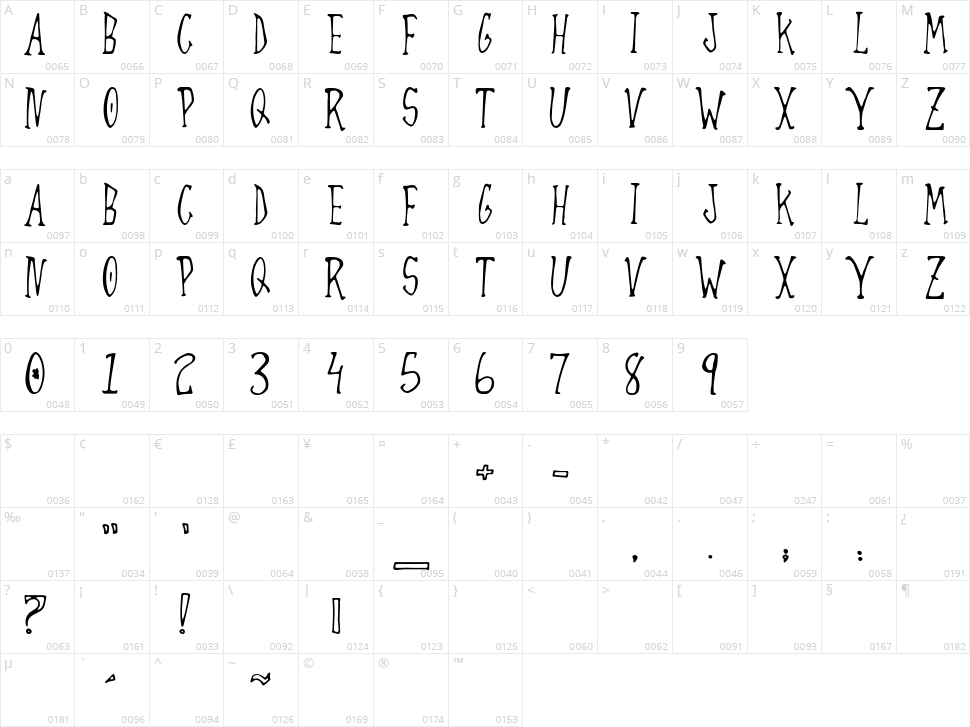
Always Joking
ALWAYS JOKING
A TrueType Font by S. John Ross
Heres a return to some of my older font-making habits, where the font is a record of my doodling, more than any kind of project-oriented design work. Always Joking goes for a blend of madness and warmth, with an arms-flailing-about sort of aesthetic coupled to the sort of soft-edged look I enjoy. It isnt a complete keyboard set, though (my doodle fonts seldom are), but rather an all-caps font with numerals and a random assortment of punctuation and extras (very random indeed; it has smart-quotes but not parentheses, for example, and how much sense does that make? Im insane, I tell you. Guard your cats!)